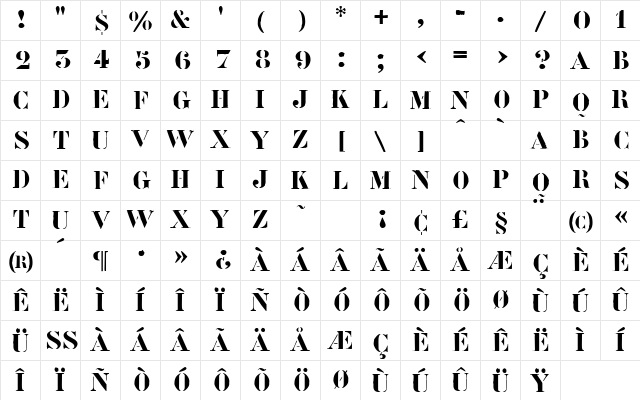
Roadcase Regular
Roadcase Family
Roadcase Regular
Design Context for Roadcase
Roadcase is a composed and adaptable typeface that performs quietly and consistently across a wide range of design contexts.